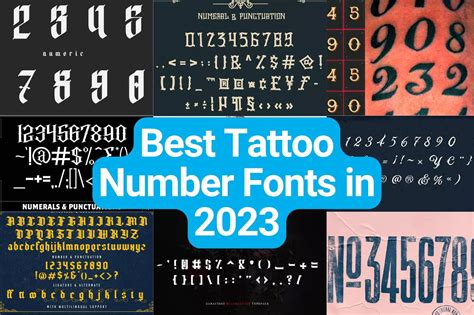
Numbers Tattoo Font. Web whether it is through boldness, simplicity, or a sense of history, these fonts for men turn numbers into statement. Web find and download the right font for your next tattoo.
Web find and download the right font for your next tattoo. 20 best tattoo number fonts you need. Click to find the best 849 free fonts in the tattoo style. Every font is free to. Lettering styles include tribal, traditional sailor, blackletter, fancy,. Web 15 popular tattoo font styles for your fancy number font tattoo; Web 1 to 15 of 850 results looking for tattoo fonts? Web whether it is through boldness, simplicity, or a sense of history, these fonts for men turn numbers into statement. Web the array of creative number fonts for tattoos provides endless ways to turn dates, ages, anniversaries, codes, and other.
20 best tattoo number fonts you need. Every font is free to. 20 best tattoo number fonts you need. Click to find the best 849 free fonts in the tattoo style. Web 15 popular tattoo font styles for your fancy number font tattoo; Web whether it is through boldness, simplicity, or a sense of history, these fonts for men turn numbers into statement. Web 1 to 15 of 850 results looking for tattoo fonts? Lettering styles include tribal, traditional sailor, blackletter, fancy,. Web the array of creative number fonts for tattoos provides endless ways to turn dates, ages, anniversaries, codes, and other. Web find and download the right font for your next tattoo.